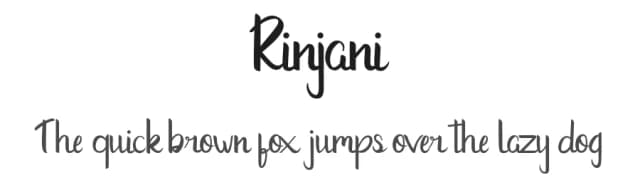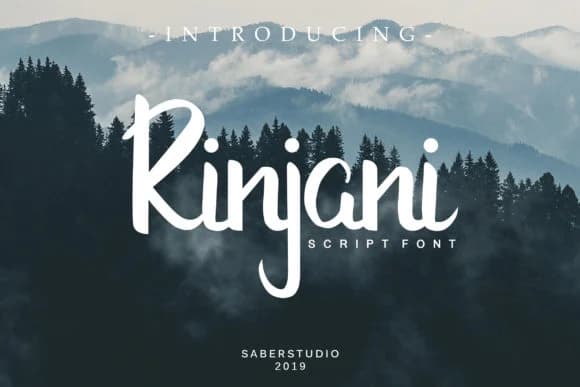
Rinjani, a creation from Saber Studio, is a bold and expressive script that captures the fluidity and movement of hand-lettering through confident, flowing letterforms. The characters carry genuine warmth and unmistakable personality, distinguishing it clearly from standard typefaces while retaining the polish and professionalism needed for serious design work. What makes this script genuinely compelling is how successfully it balances handmade character with legibility, staying readable across different sizes and applications without losing its organic charm or distinctive voice.
This typeface thrives on projects where contemporary character and personal expression matter. Wedding invitation suites gain immediate sophistication and a human touch from these letterforms. Boutique skincare packaging and custom greeting card designs showcase its expressive quality without veering into frivolous territory. You'll find it equally effective on Etsy product labels, hand-crafted packaging and wrapping, monogram designs, or social media graphics for small creative brands looking to sidestep templated design patterns and connect with their audience more directly.
Rinjani works best for designers and small business owners who need a script with authentic handmade appeal without compromising on functionality and legibility. You can access it on Creative Fabrica, where it's ready to bring character to your next project.
Rinjani Font is a script font that shines as a display or heading face. Pair it with a clean sans-serif or serif font for body text β the contrast creates a clear hierarchy while the two styles stay balanced and easy to read.
Rinjani Font
by Saber Studio